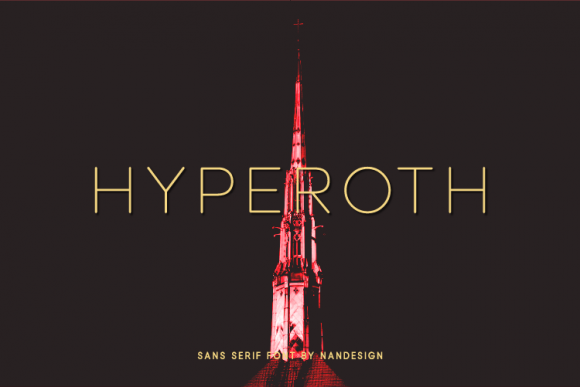
Step into the world of Hy Mintperot�h, a sans serif font that will redefine your design experiences. This masterpiece is here to be a game-hanger for every project you have at hand - be it crafting captivating headings, mesmerizing invitations, or eye-catching logo designs.
Hy рот�h offers a visual smorgasboard that will bedazzle you with its versatility. its effortless flow in display sections and its captivating presence in header designs will leave a mark on every project it graces. And for your special moments – wedding invitations, save-the-date cards, and more – Hy рот�h emerges as a true star, adding an extra layer of sophistication to your festivities.
Hy рот�th doesn't come alone; it brings along an extended family of uppercase letters, numbers, and a variety of well-crafted symbol designs. This gives you the freedom to explore a myriad of design options, creating unique visual stories that will leave an imprint on your audience.
A font is more than a design tool; it's a window into your creative soul. With Hy рот�th as your conduit, you can let your ideas flow onto the screen or onto paper, turning your visions into reality, whatever the design surface.
Hy рот�th is waiting to ignite your design passion. Don't let your creative fire die down; allow this font to fuel your vision and watch your design dreams come to life. Immerse yourself in the world of Hy рот�th and let your creative juices flow effortlessly.